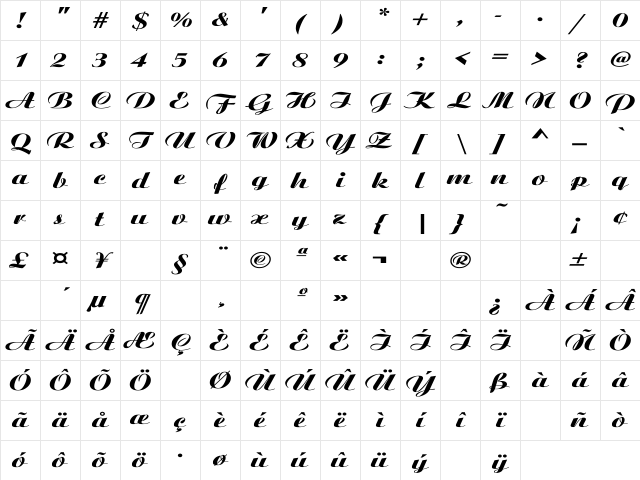
Complete Ariston Wd Regular glyph index. Displaying only characters natively supported by Ariston Wd Regular font.
Ariston Wd is a composed and adaptable typeface that performs quietly and consistently across a wide range of design contexts.